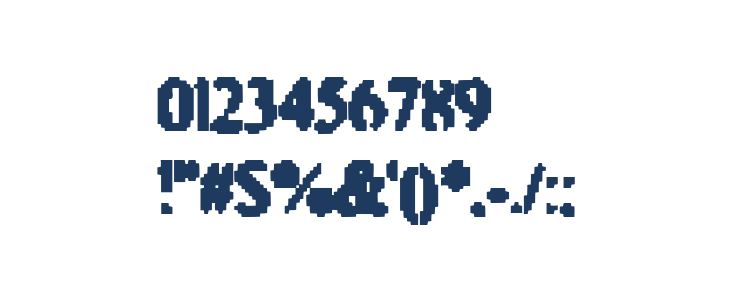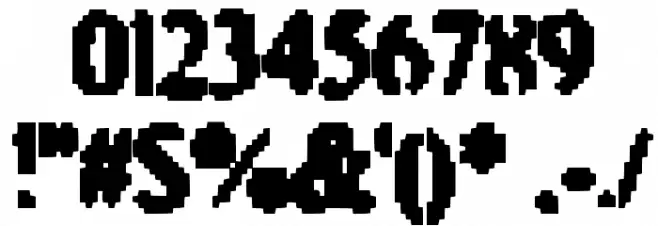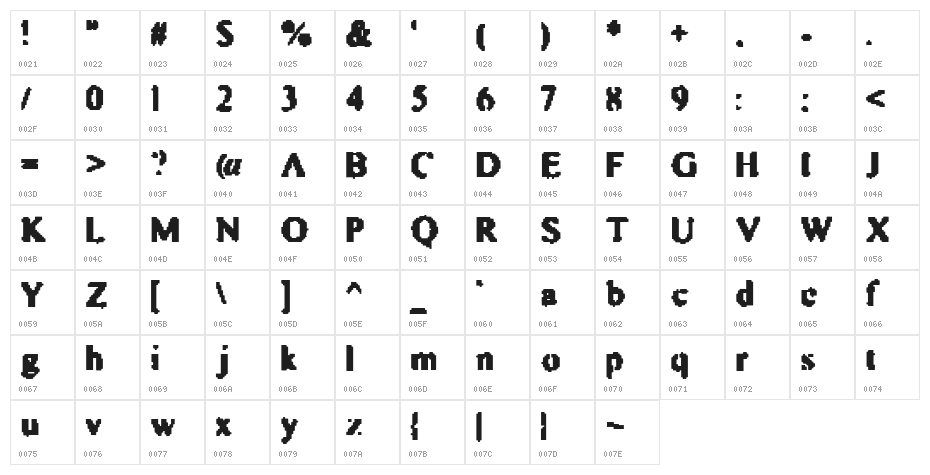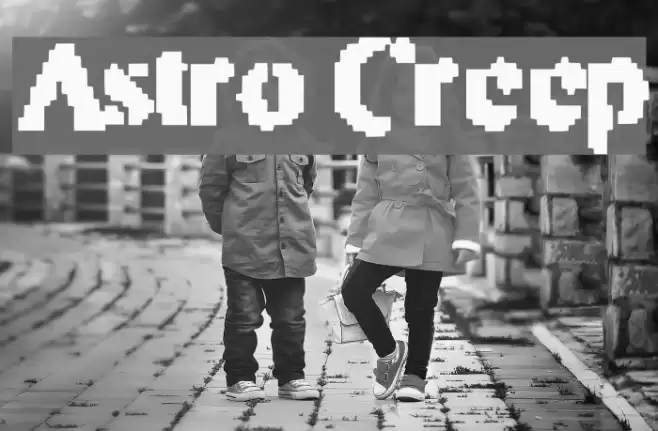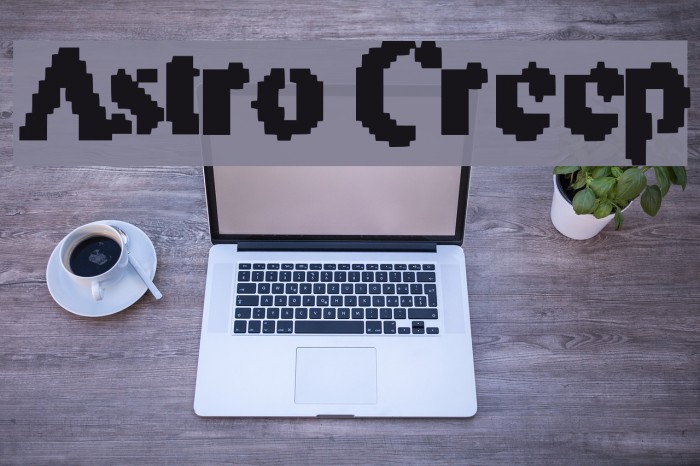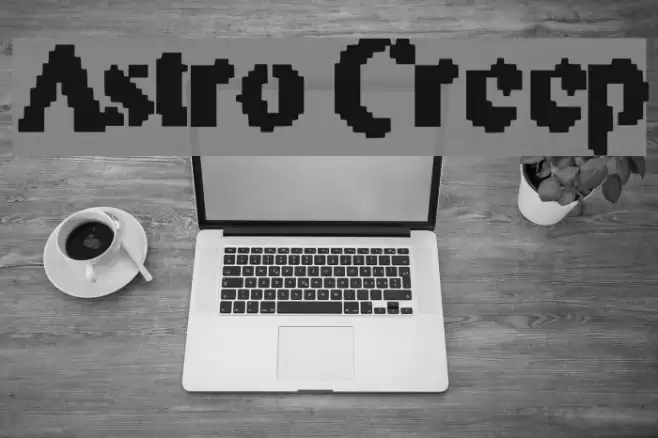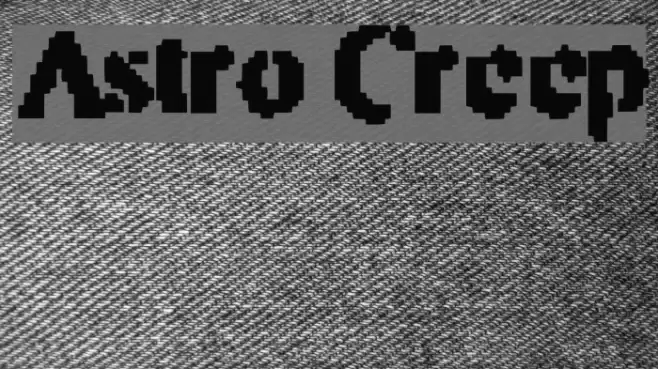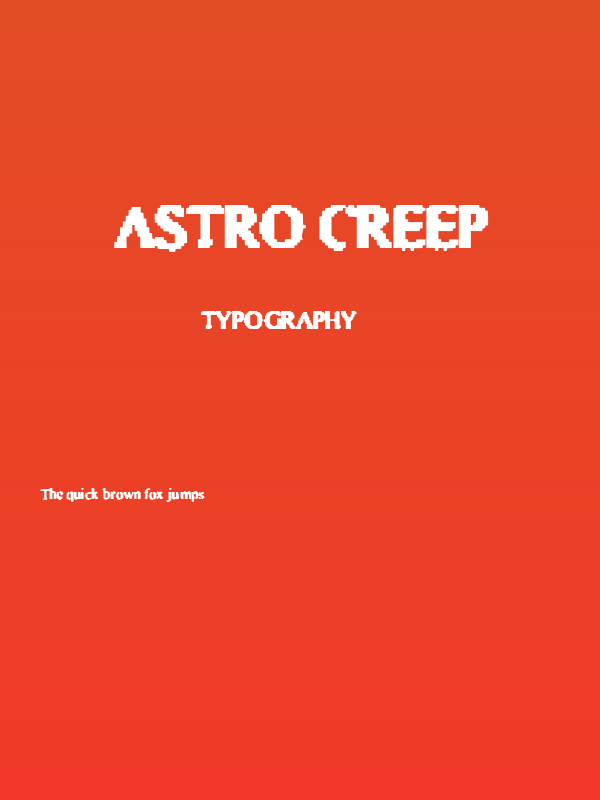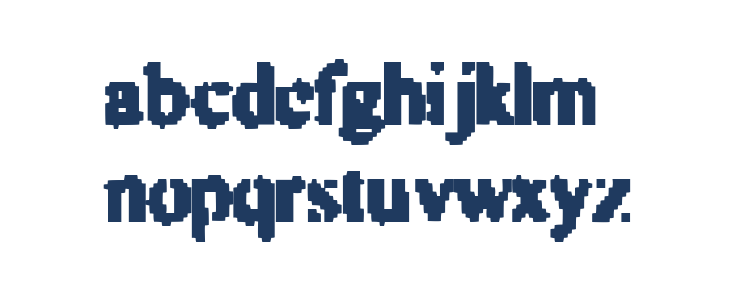
Astro Creep Font
Astro Creep Description
This font features a bold and edgy design with a pixelated, blocky appearance. The characters are constructed with sharp, angular edges, giving it a digital and futuristic feel. The uppercase and lowercase letters maintain a consistent style, with the uppercase being slightly more pronounced. Numbers and special characters follow the same geometric pattern, ensuring uniformity across all glyphs. The font's unique style is reminiscent of retro video game graphics, making it ideal for projects that require a nostalgic or tech-inspired aesthetic. Its boldness ensures high visibility, making it suitable for impactful headlines or titles.
| Proposed Projects | Ideal for video game graphics, tech-themed posters, and retro-inspired designs. |